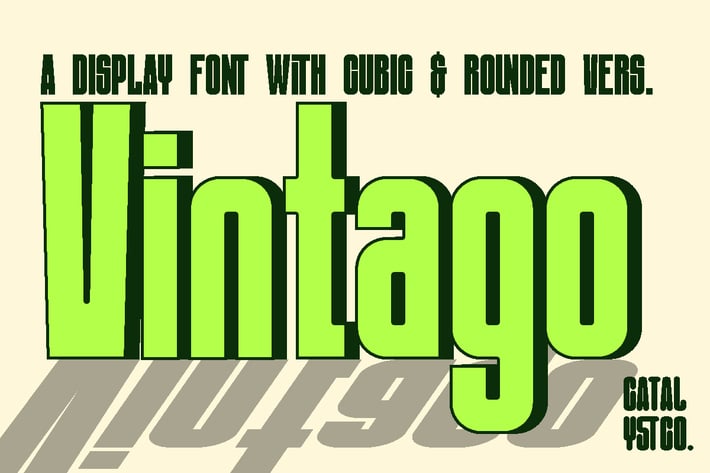
Vintago Display Font
Vintago Display Font Vintago is a bold and powerful display font that comes in both cubic and rounded versions, offering maximum flexibility for creative typography. Inspired by retro serif aesthetics and designed with strong geometric shapes, Vintago makes a bold statement in headlines, posters, logos, and more. This font combines modern bold looks with a vintage edge, making it a great fit for designs needing an expressive, blocky, or slightly tech font style. With alternates and stylistic characters, Vintago suits sport fonts, editorial, or professional font projects alike.
Ligatures & Alternate